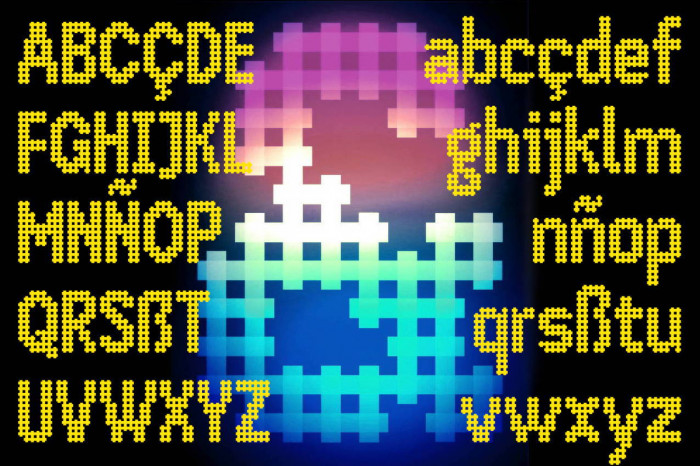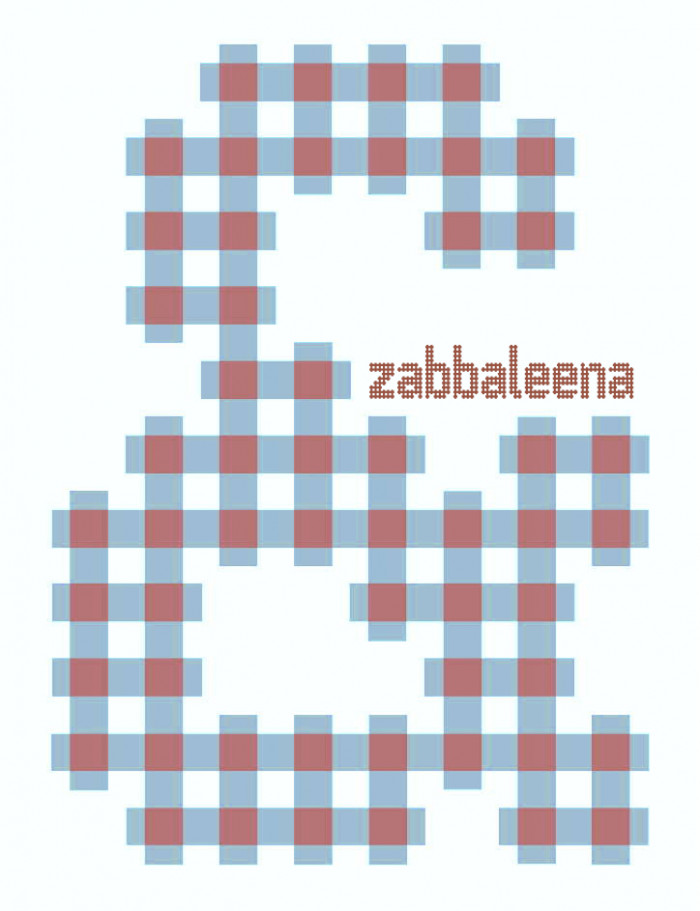
An optical little experiment... Hope you like it.
@elmoyenique - Very nice. A suggestion: make a second font containing only the interior 'dark red' squares in your 2nd sample; they are currently 'empty'/'vacant' in your original font. That way, you can make 2-tone samples like you have done by overlaying the two fonts together. Alternately (and probably easier): simply clone the font and fill in the "holes" for the entire font; make the filled 'background' font one color, then overlay the original 'forground' font with holes in a different color on top of it. That way, you wouldn't have to worry about setting/adjusting glyph heights...